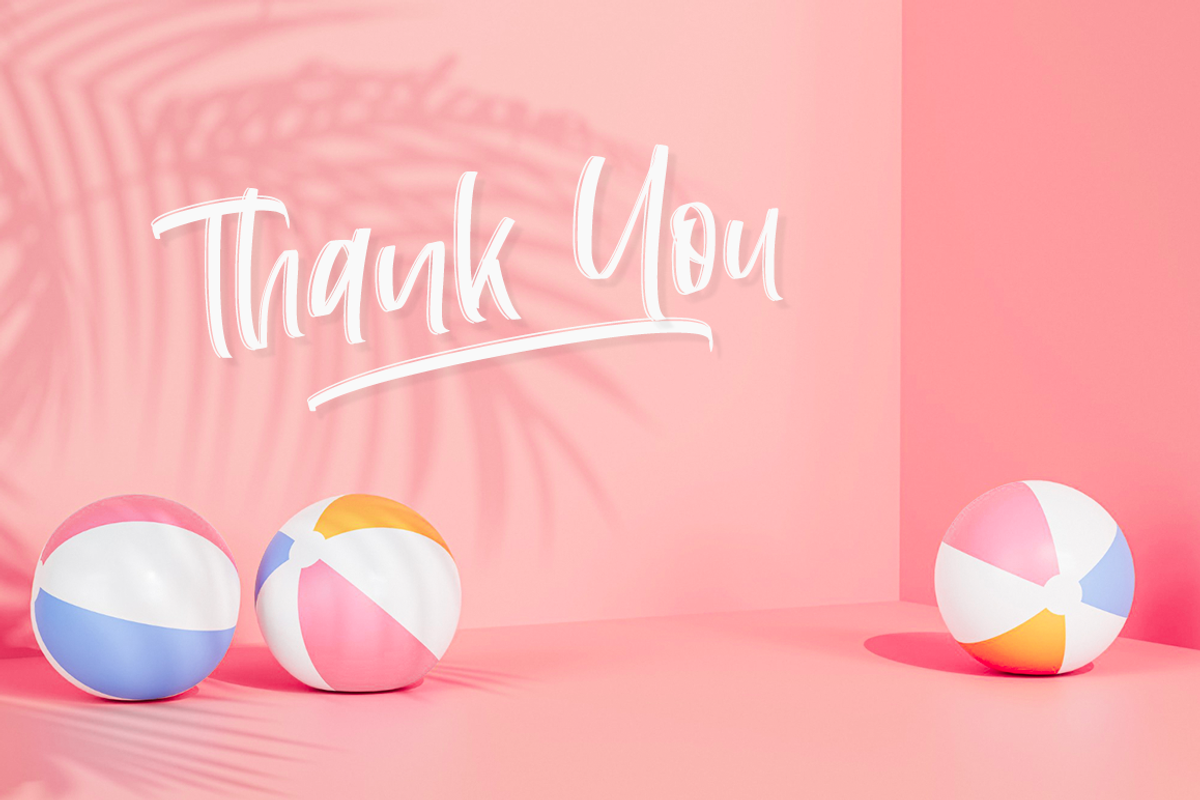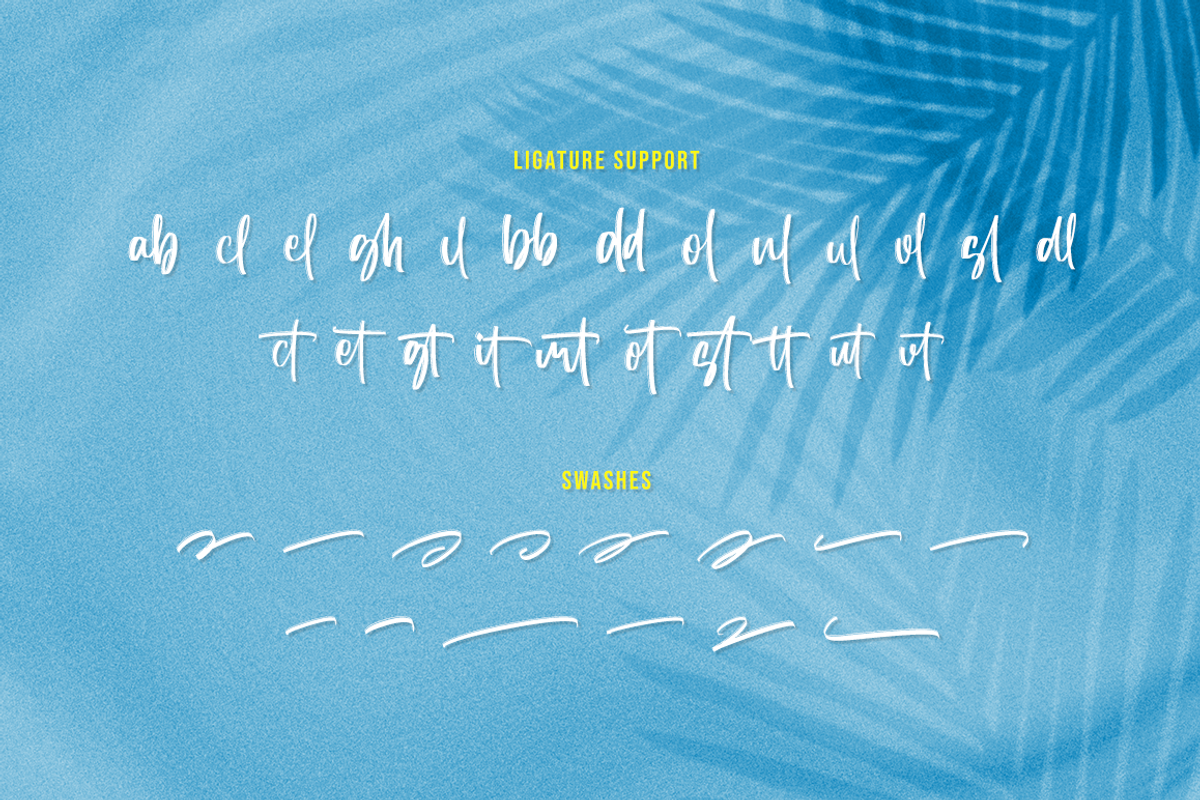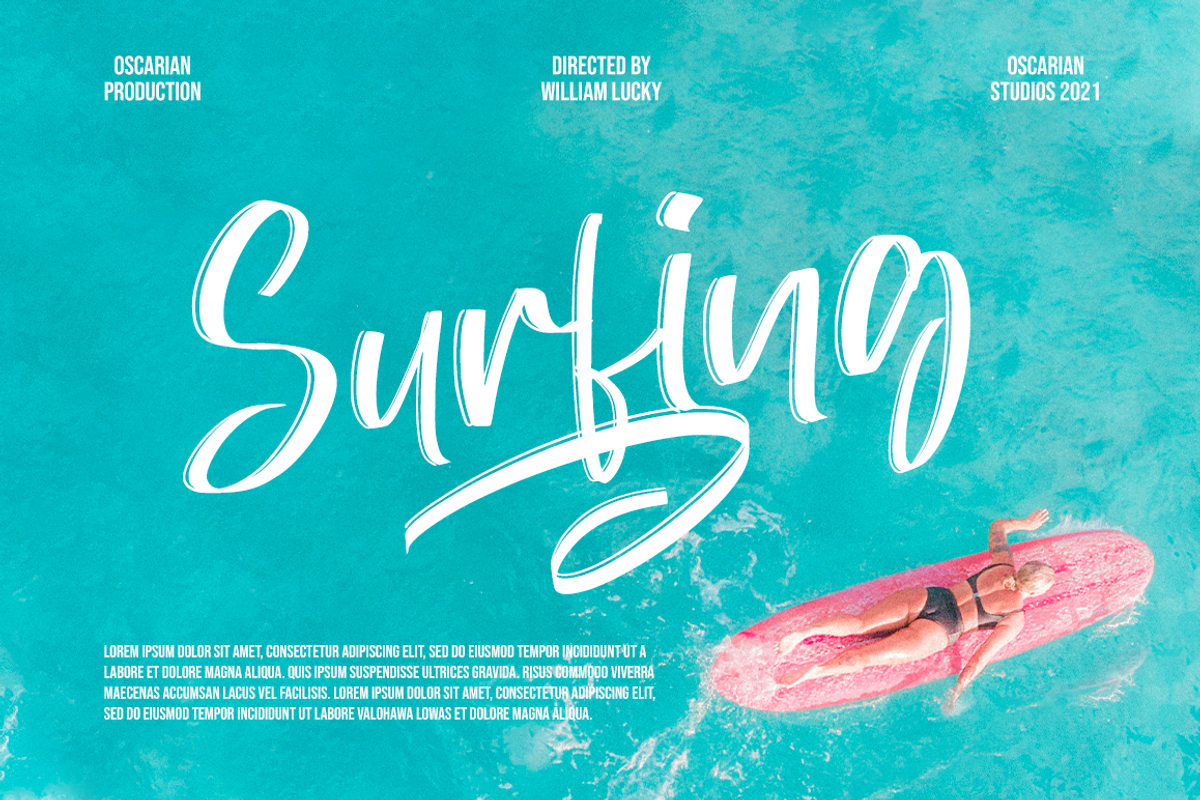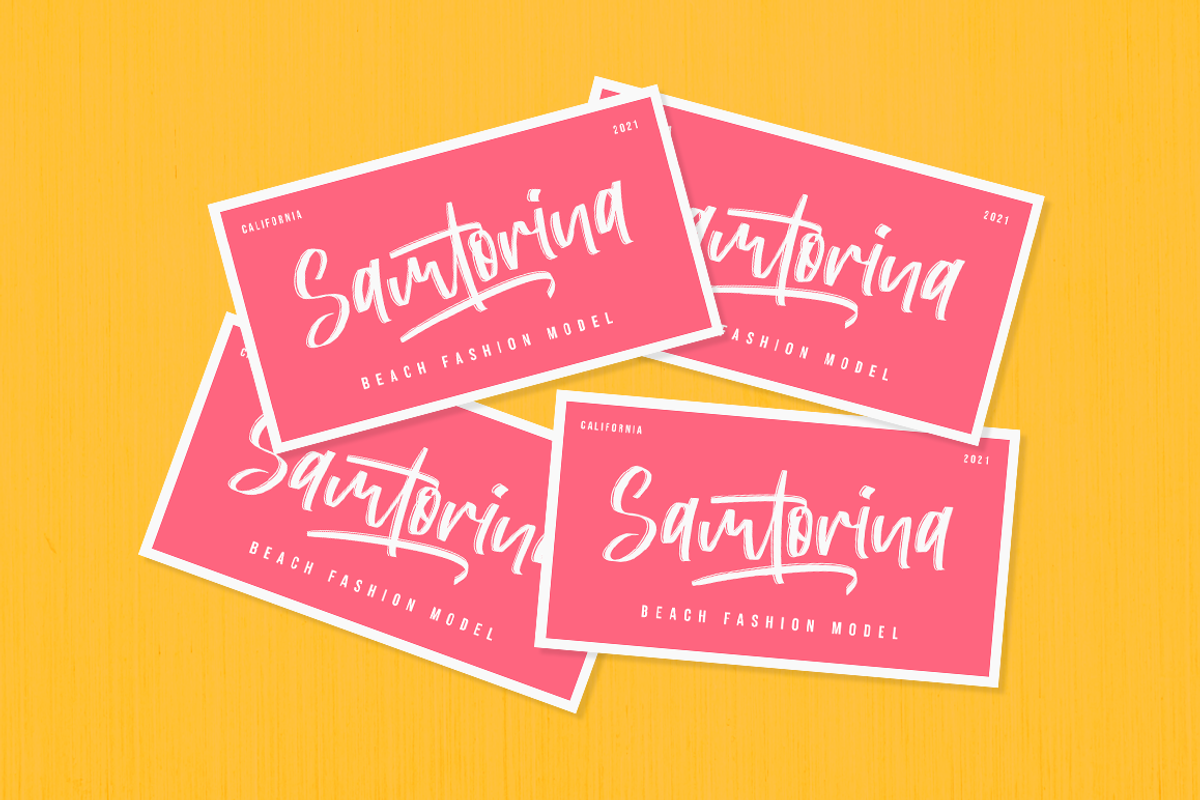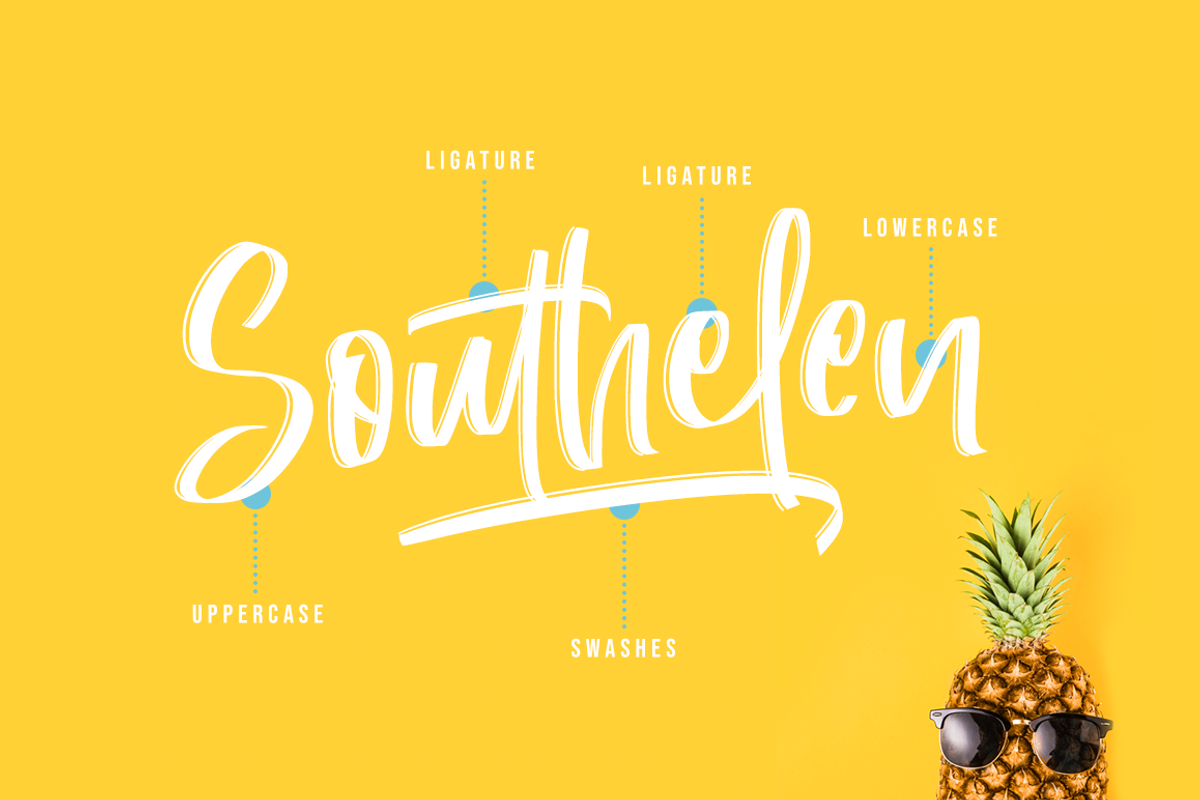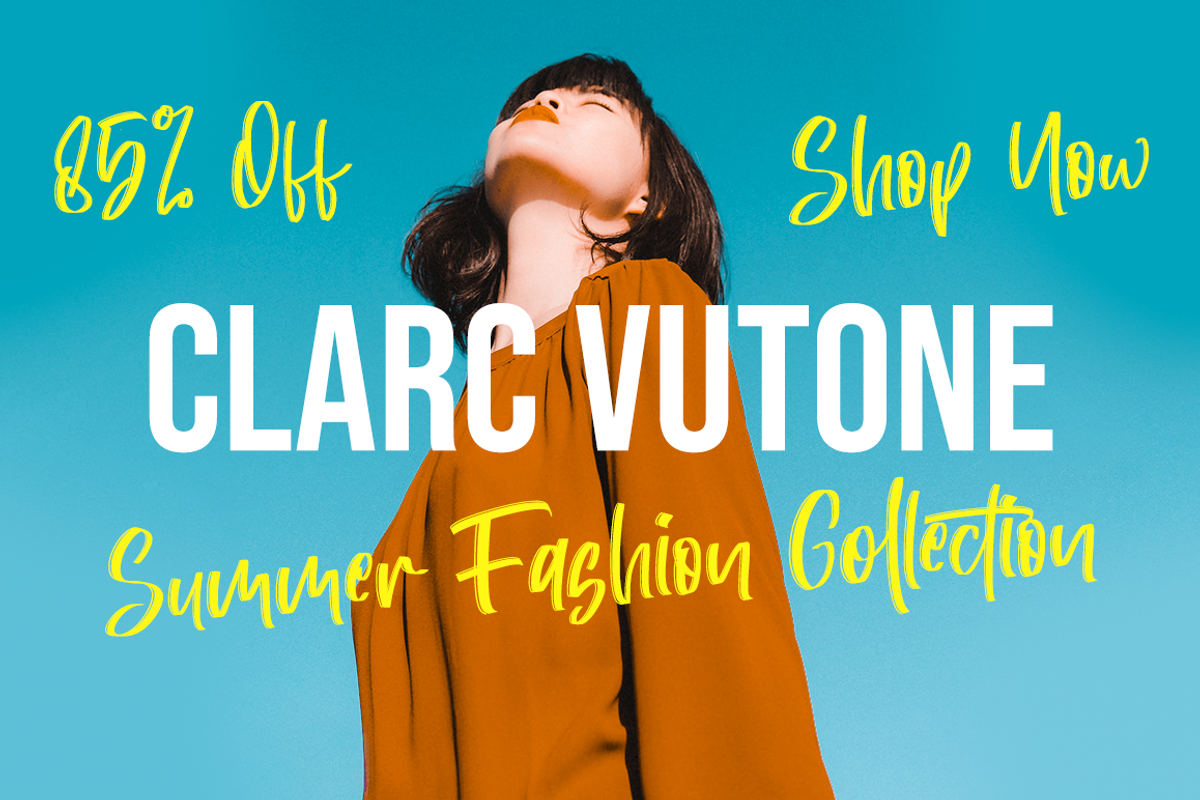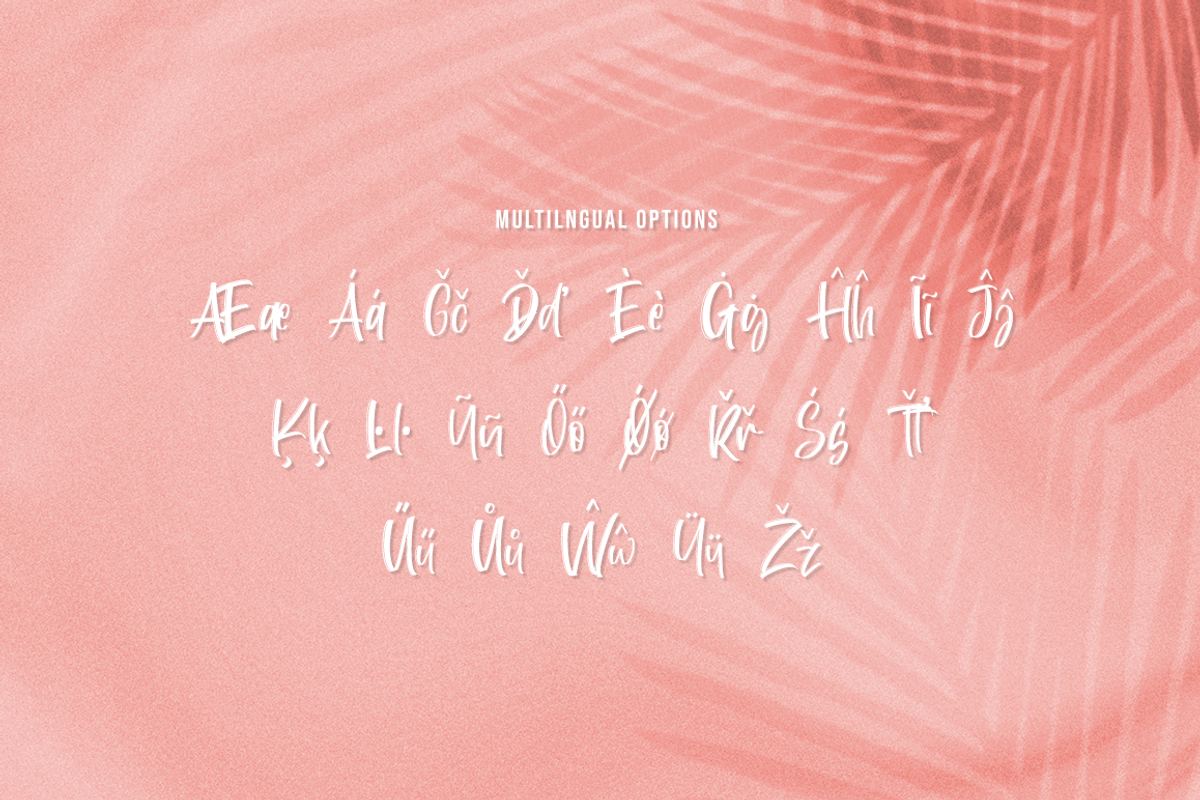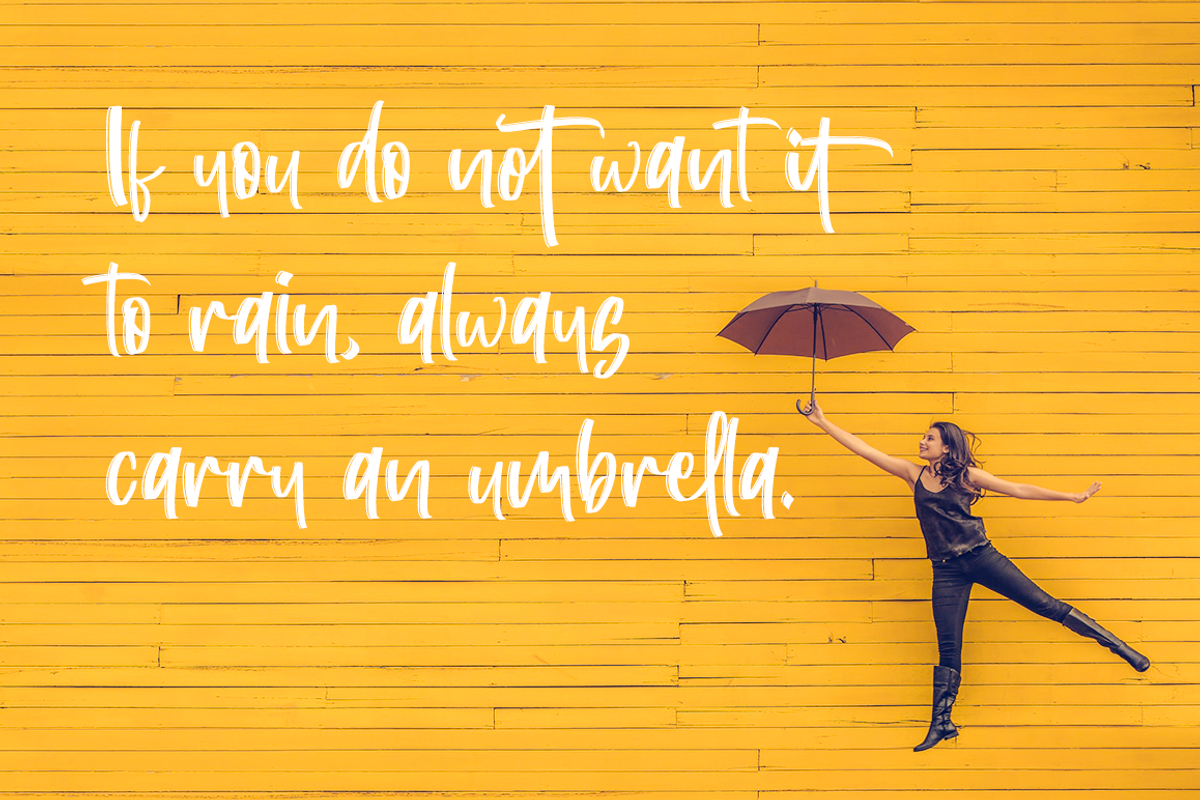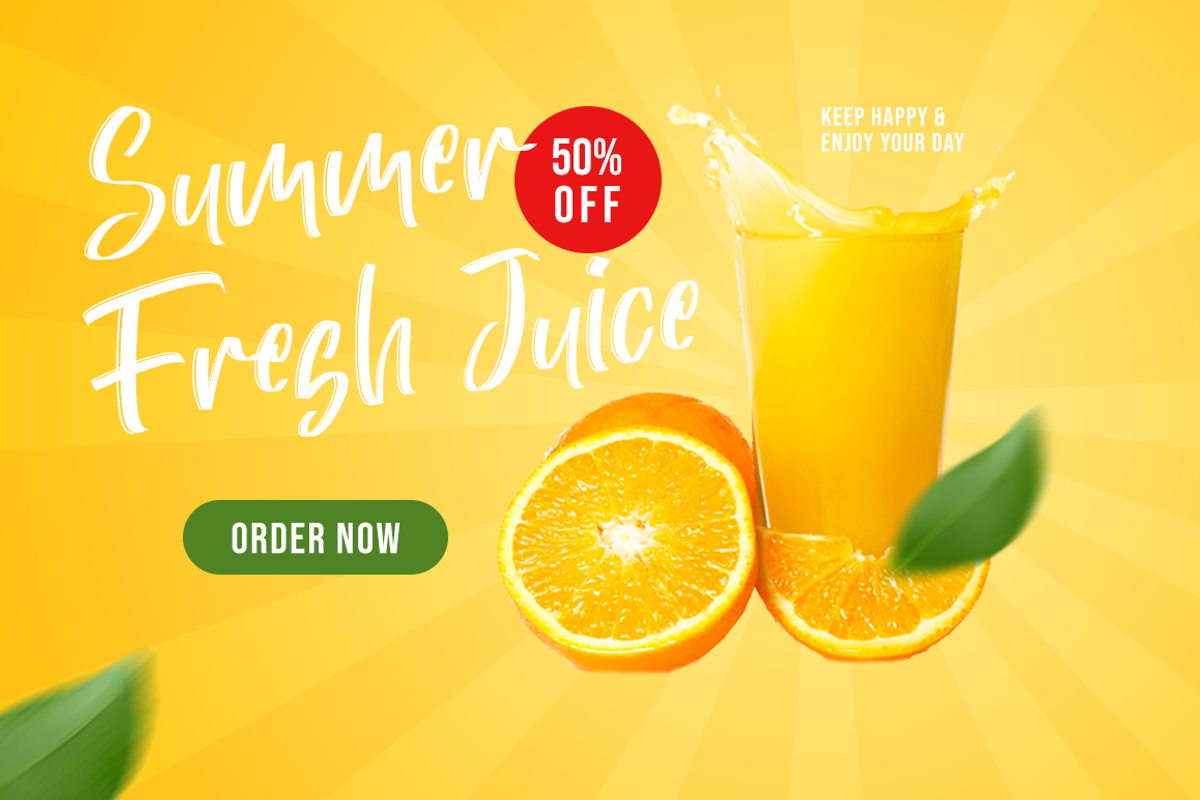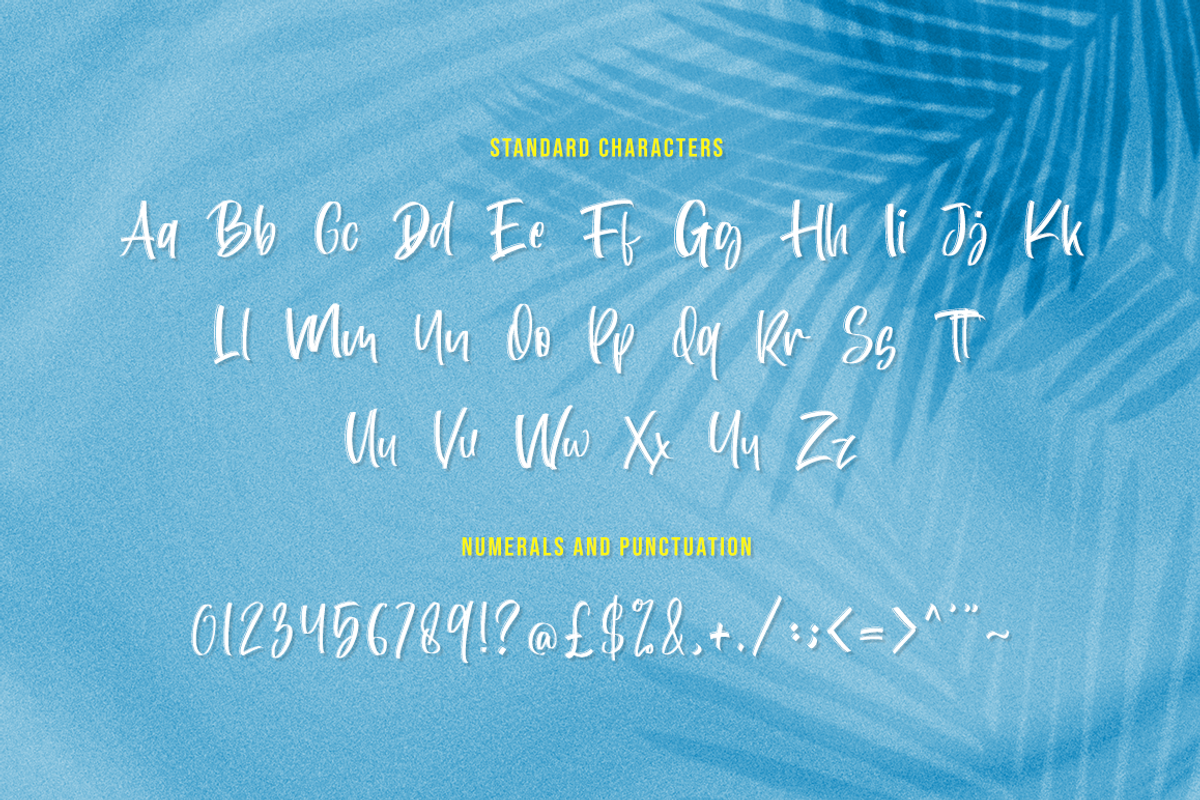
Southeast - Summer Font
Southeast is a stunning fresh font. It is designed as a solid, clean brush font making it suitable for summer-style designs in a clean, neat way.